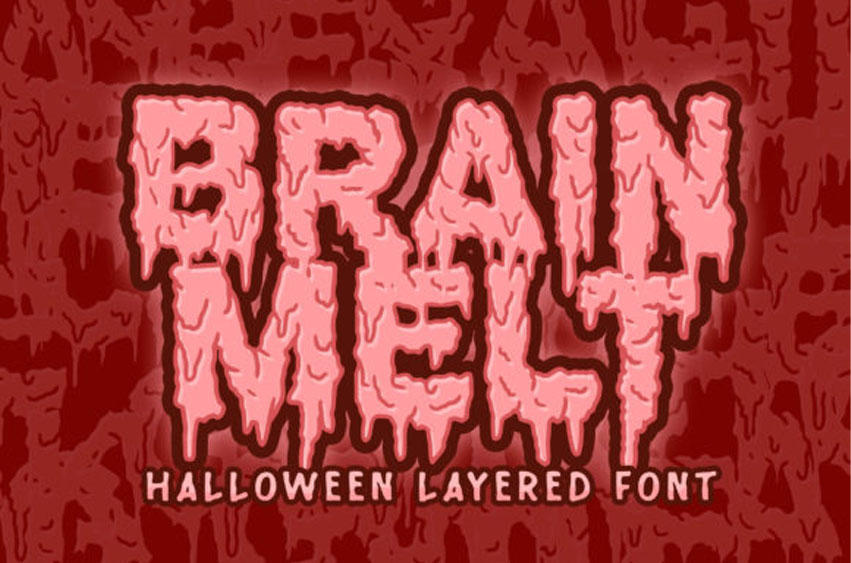
Brain Melt Font
Brain Melt Font is a cool, dramatic and thick lettered display font.
It embodies playfulness and authenticity and is the perfect choice for any children activity or school project.